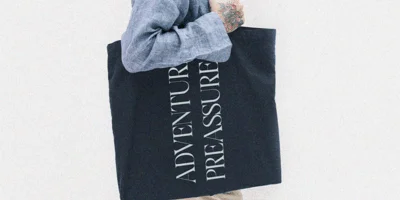
Yagi Font
Yagi Font is perfect for Japanese restaurant branding, Asian cultural center signage, martial arts dojo communications, anime convention materials, zen meditation studio logos, traditional tea ceremony promotions, modern sushi bar marketing, and contemporary Japanese fashion boutique designs.
Yagi Font is exciting because it harmoniously blends traditional Japanese aesthetic principles with contemporary design sensibilities through its elegantly balanced letterforms that echo the grace of calligraphy brushstrokes and the precision of modern minimalism. The typeface embodies the Japanese philosophy of refined simplicity and purposeful beauty, creating an immediate sense of cultural authenticity and sophisticated elegance that resonates with audiences who appreciate Eastern design wisdom.
Yagi Font family includes Light, Regular, Medium, Bold, and Black weights, complemented by Japanese-inspired decorative elements and zen-like ornamental flourishes, offering designers authentic typography tools for creating communications that honor Japanese heritage while appealing to contemporary global audiences.
Whether you're developing an authentic Japanese dining experience brand, designing cultural education materials, or creating modern Asian-inspired content, Yagi Font provides unmatched cultural sensitivity and aesthetic refinement. This remarkable typeface perfectly captures the essence of Japanese design philosophy while maintaining excellent readability across both Latin and international character sets, ensuring your communications connect with diverse audiences who value cultural authenticity and thoughtful design. The font's harmonious proportions and meditative rhythm make it particularly effective for brands that emphasize mindfulness, quality craftsmanship, and the kind of attention to detail that defines Japanese excellence. Cultural institutions and lifestyle brands consistently choose Yagi Font when projects require typography that communicates respect, precision, and the kind of understated elegance that transforms ordinary experiences into moments of contemplation, making it essential for Japanese cultural branding, wellness industry marketing, and any application where thoughtful typography can honor the magnificent aesthetic traditions of Japan and the timeless principles of beauty, balance, and mindful design that continue to influence global culture.